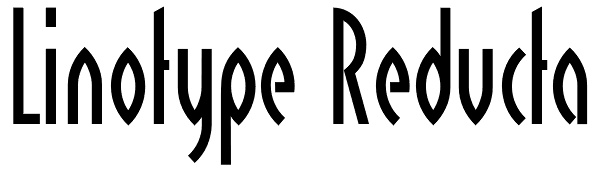
Linotype Reducta
Linotype Reducta is a part of the Take Type Library, selected from contestants of Linotype’s International Digital Type Design Contests of 1994 and 1997. It was designed by Austrian artist Herbert O. Modelhart with only a small number of constant...